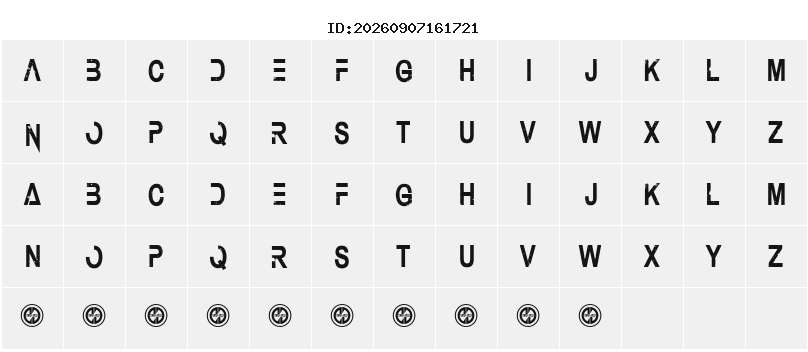
• Font Name: Under Authority
• Full Font Name: Under Authority
• Version: Version 1.00 March 24, 2016, initial release
• Designer: Chris Vile
• Manufacturer: Font Monger
• Description: Under Authority Regular is a font by Font Monger, designed by Chris Vile in 2016.
About Under Authority.otf
Under Authority.otf is a modern, elegant sans-serif font designed for ultimate readability and visual harmony. Perfect for branding, headlines, web design, and print materials.